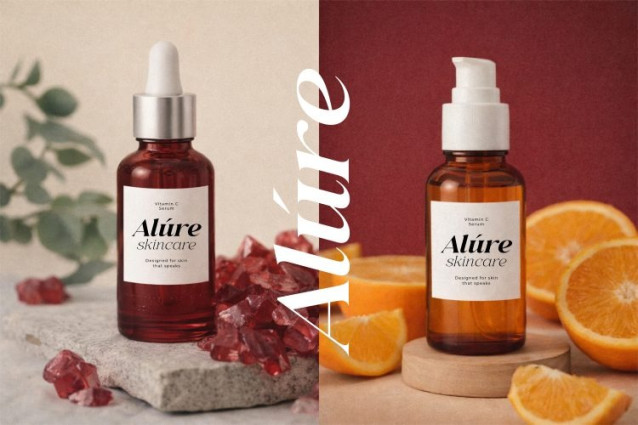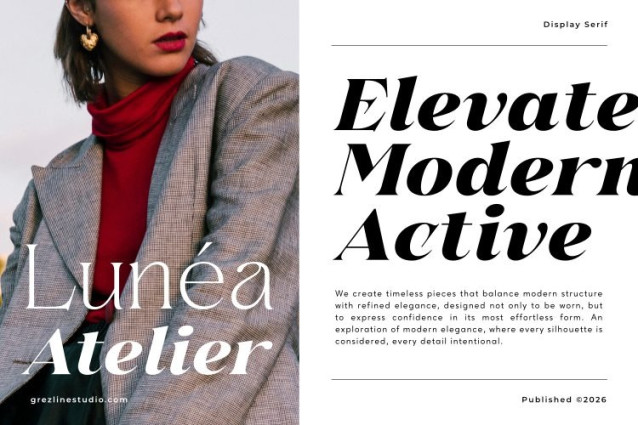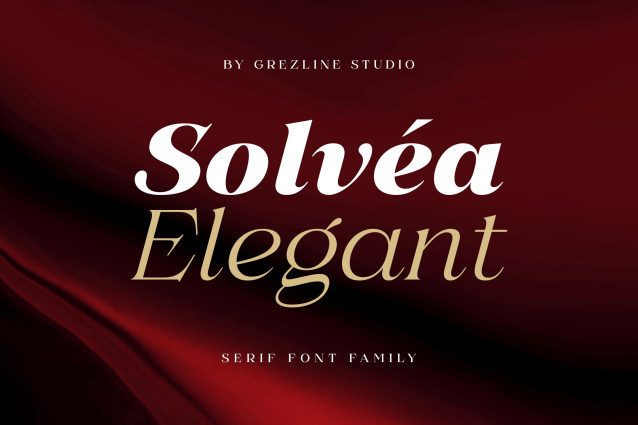
Solvea Typeface is designed to adapt seamlessly across various creative directions — from luxury branding and product packaging to modern digital layouts and editorial compositions. Its balanced structure and elegant flow allow every composition to feel intentional, polished, and visually compelling.
Crafted with a refined high-contrast design, Solvea brings a distinctive presence while maintaining clarity and readability. Each letterform is carefully shaped to deliver both aesthetic appeal and functional versatility, making it suitable for headlines, logotypes, and sophisticated visual systems.